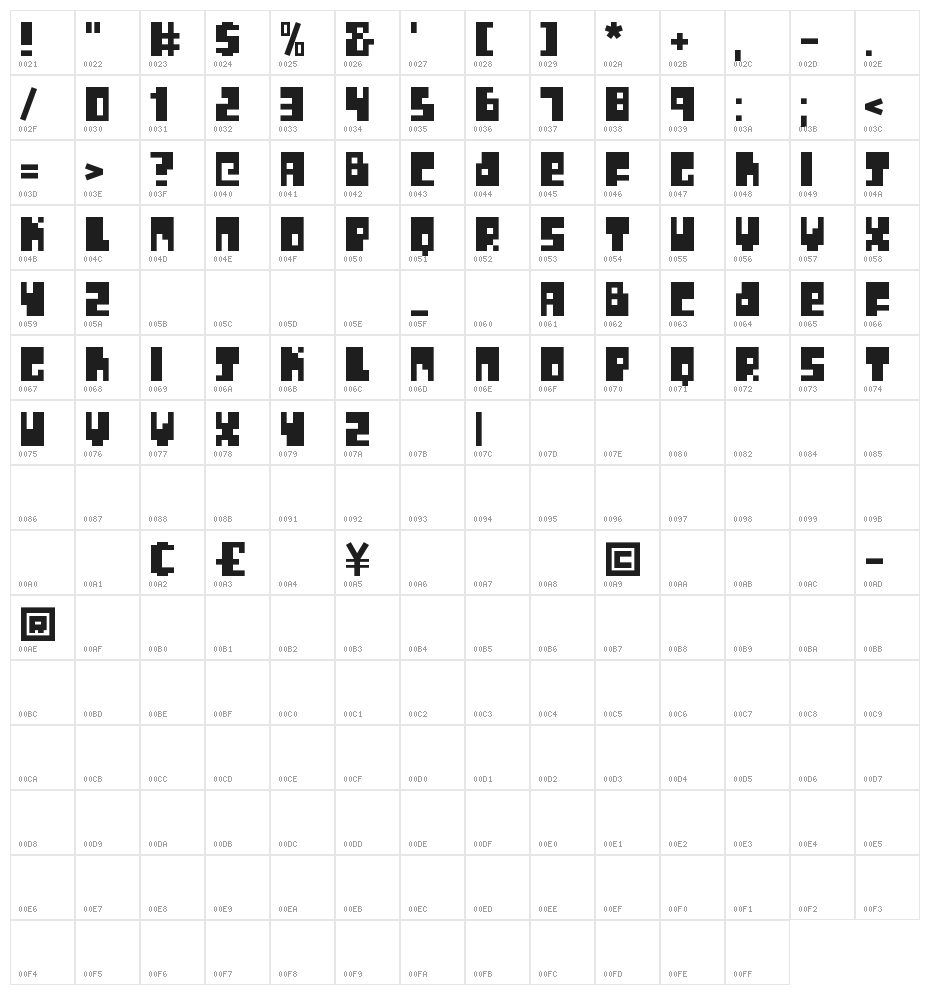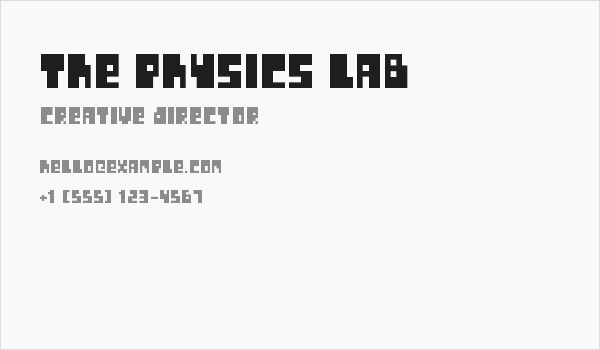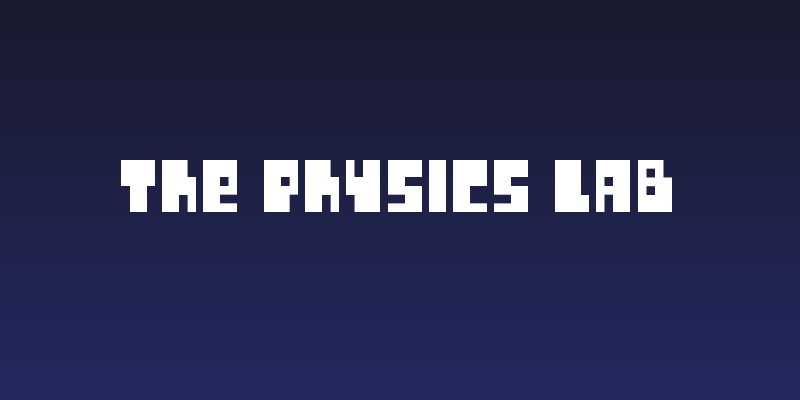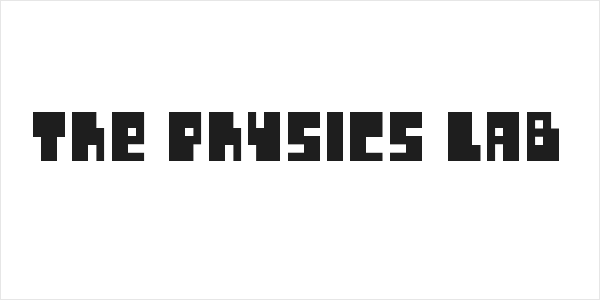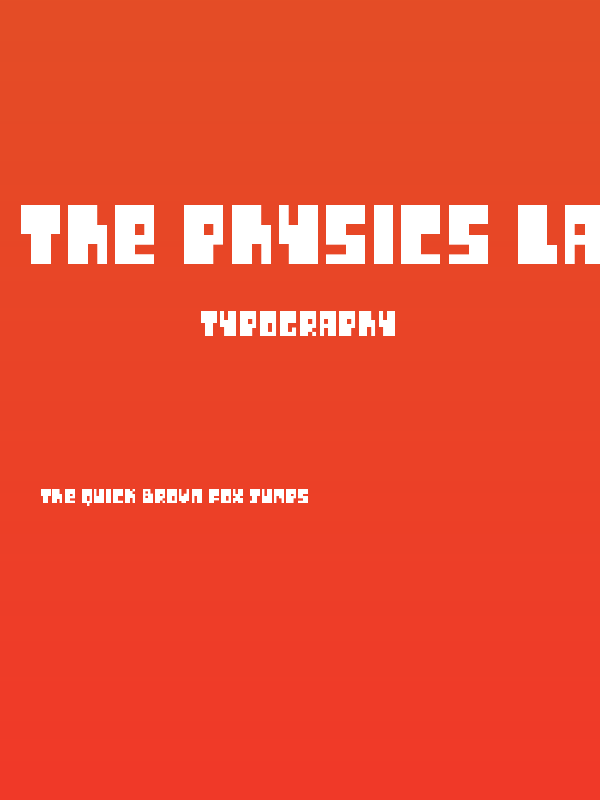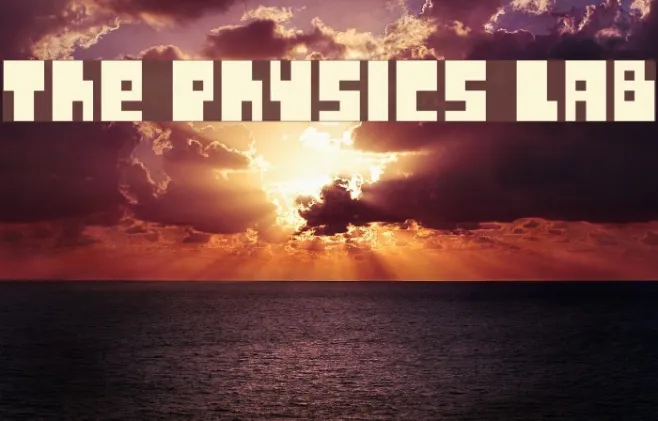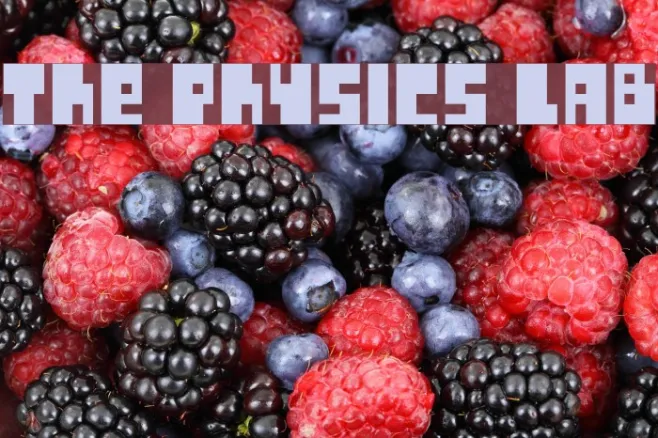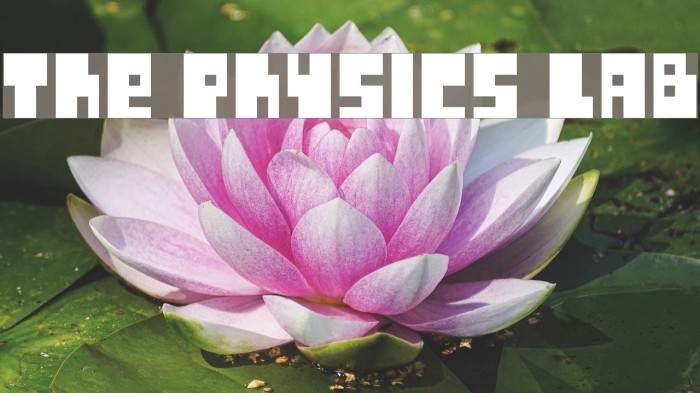
The Physics Lab Font
The Physics Lab Description
This font features a bold, geometric style with a blocky, pixelated appearance. The characters are uniformly thick, creating a strong visual impact. Each letter and number is constructed with sharp angles and straight lines, giving it a digital, retro feel reminiscent of early video game graphics. The uniformity in stroke width across all characters contributes to a cohesive and consistent look. This typeface is highly legible at larger sizes, making it ideal for attention-grabbing headlines or titles. The special characters maintain the same blocky style, ensuring visual consistency throughout the font set.
| Proposed Projects | Ideal for video game graphics, retro-themed posters, digital art projects, and bold headlines. |